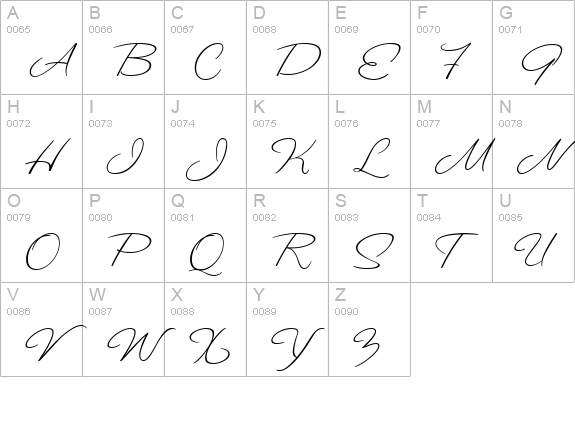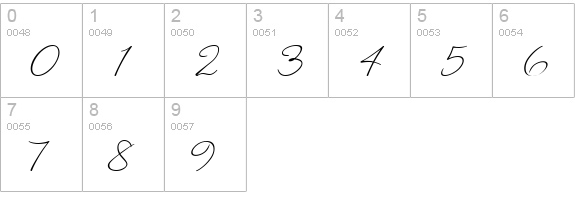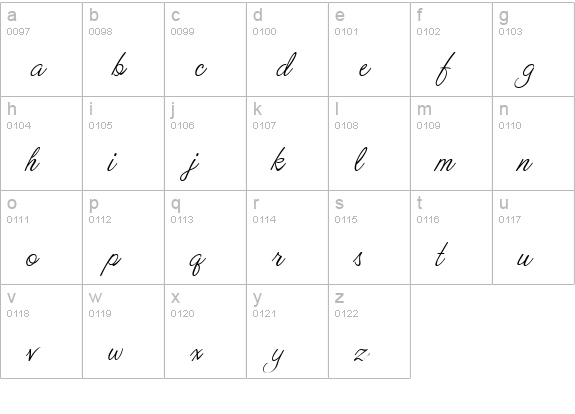
ValentinaJF Font Details
Introducing ValentinaJF, a stunning font that exudes elegance and sophistication. This exquisite typeface is sure to capture your attention with its graceful curves and delicate details. ValentinaJF is the perfect choice for adding a touch of class to any design project. What sets ValentinaJF apart is not only its beauty but also its accessibility. This remarkable font is free for personal and commercial use, allowing designers of all levels to enjoy its charm and versatility. Whether you are designing a wedding invitation, a logo, or a branding project, ValentinaJF will bring a touch of timeless beauty to your creations. To make it even more convenient, ValentinaJF is readily available for download at FontsMarket.com. With just a few clicks, you can effortlessly add this stunning font to your collection and start creating captivating designs. FontsMarket.com is a reliable platform that offers a vast selection of high-quality fonts, and ValentinaJF is just one of the many gems you can find there. So, why wait? Embrace the beauty of ValentinaJF and enhance your design projects with this elegant font. With its free availability and effortless downloadability at FontsMarket.com, ValentinaJF is the perfect addition to any designer's toolkit. Let ValentinaJF elevate your designs and leave a lasting impression on anyone who sees them.